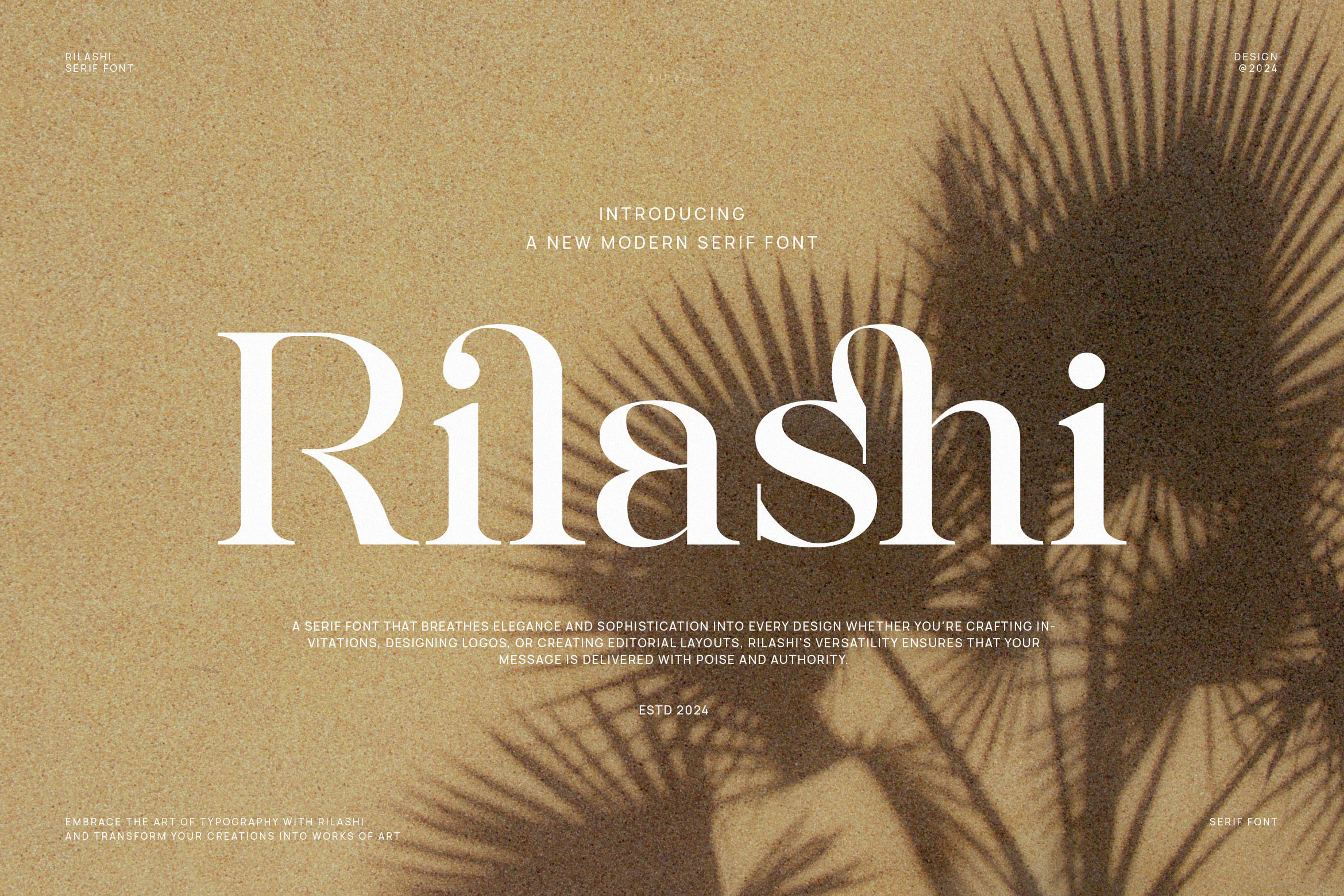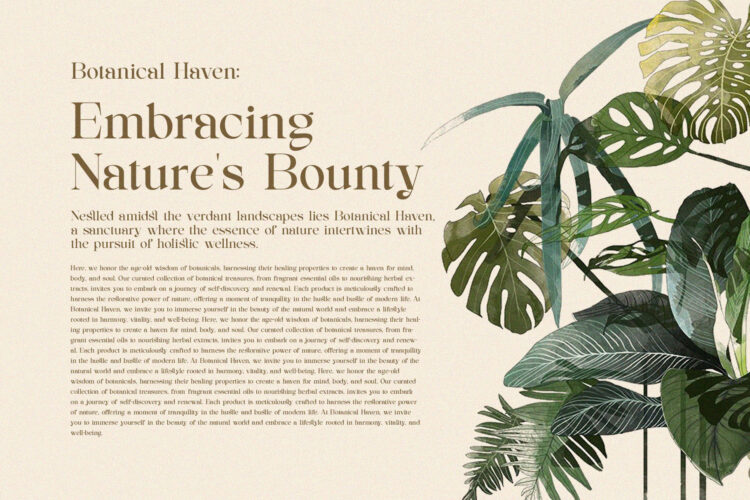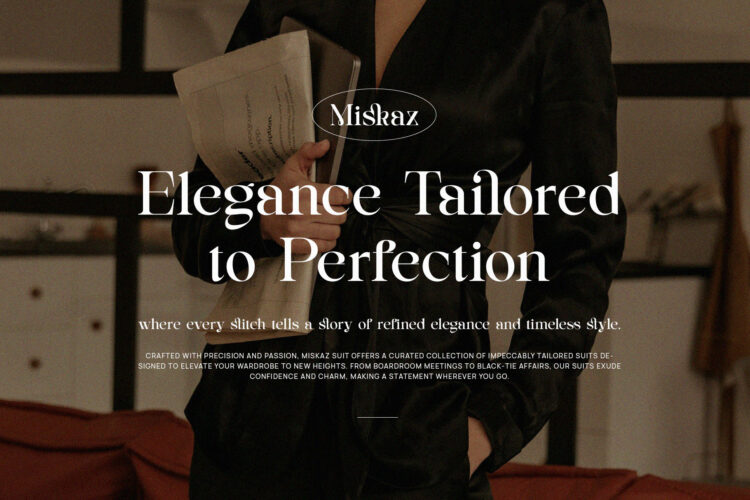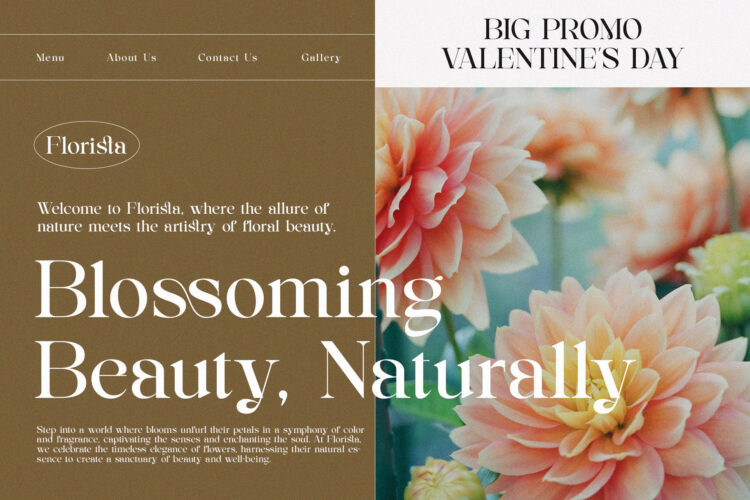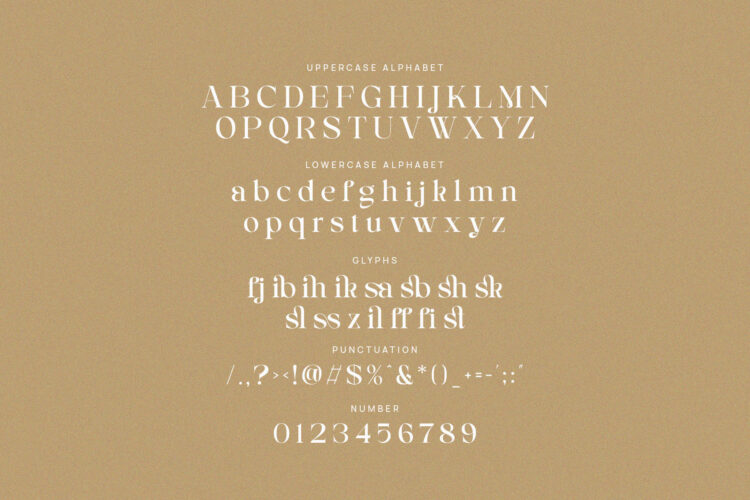
Introducing our new Rilashi, modern serif font with elegant style this is perfect for branding, logos, invitation, magazines, product packaging and more.
Rilashi – Elegant Serif Font